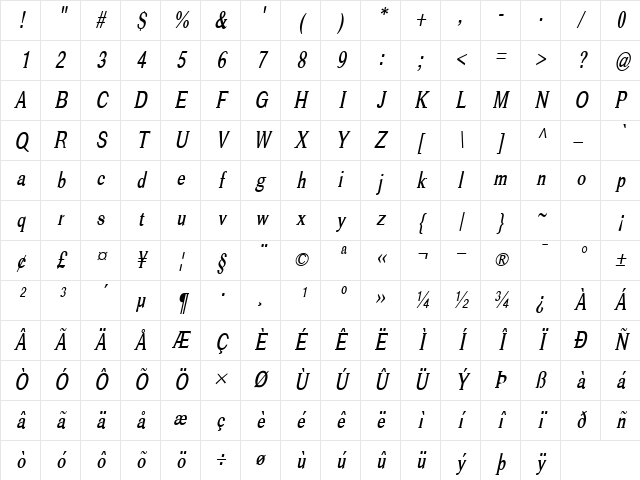
Complete Cheetah Italic glyph index. Displaying only characters natively supported by Cheetah Italic font.
Cheetah is a composed and adaptable typeface that performs quietly and consistently across a wide range of design contexts. The slanted form adds forward momentum and visual energy.
Pro Tip: Use Cheetah for emphasis, pull quotes, and subheadings where its slanted energy can add rhythm to the layout.